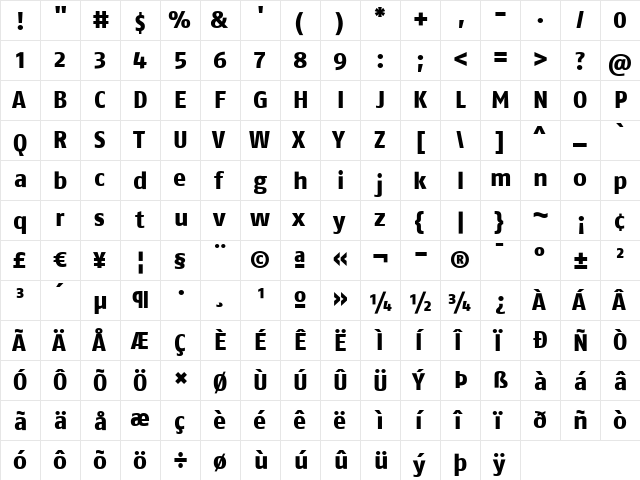
FagoNoLf Extrabold Font Preview
FagoNoLf Extrabold
| Foundry | Ole Schaefer, . Published by FontShop International for FontFont Release Fago is a trademark of FSI Fonts and Software GmbH |
Design Context for FagoNoLf Typeface
FagoNoLf offers clean, dependable letterforms without strong stylistic allegiance, making it a practical choice for designers who need flexibility. The heavy weight commands attention and anchors typographic hierarchies.